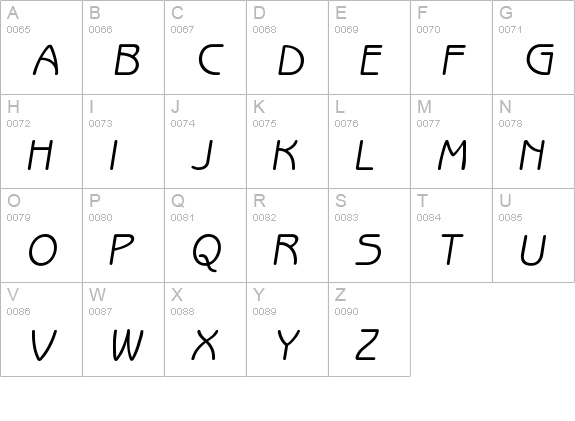
Benguiat Gothic Book Italic is a sleek and elegant font that exudes sophistication and modernity. Its slanted italic style adds a touch of flair to any design project, making it perfect for headlines, logos, and other creative applications. The clean lines and balanced proportions of this typeface make it highly versatile and easy to read, making it a popular choice for both print and digital media. As a bonus, Benguiat Gothic Book Italic is freely available to download at FontsMarket.com, allowing designers and creatives to access this high-quality font at no cost. Whether you're working on a personal project or a professional assignment, this font is sure to elevate your work and make a lasting impression. Don't miss out on the opportunity to enhance your designs with the timeless elegance of Benguiat Gothic Book Italic - download it today and let your creativity shine!